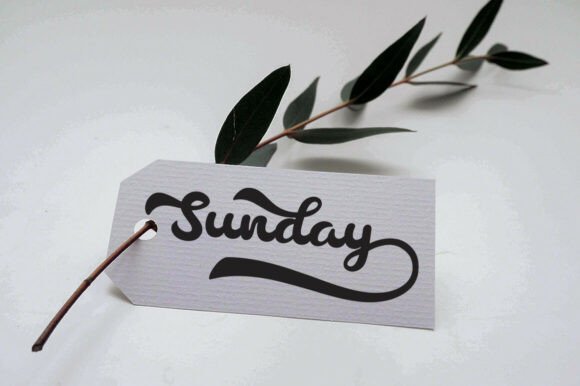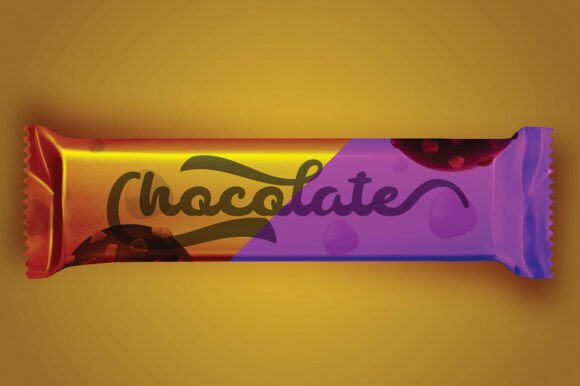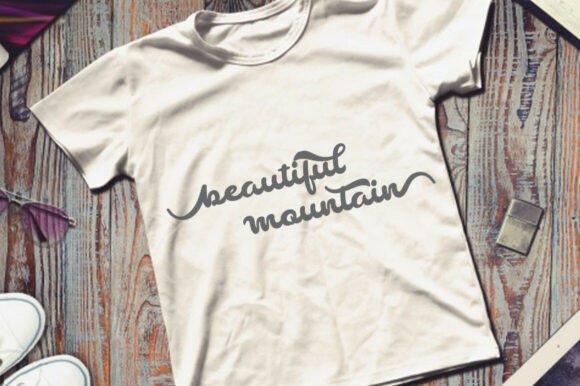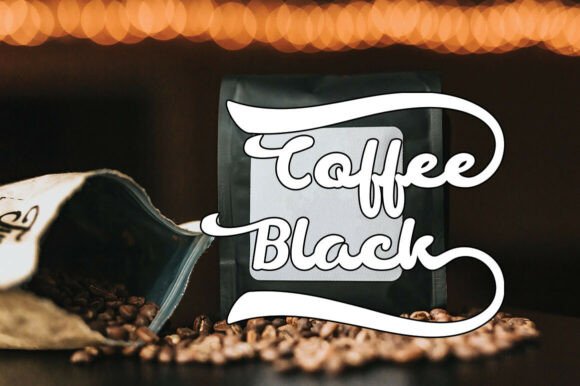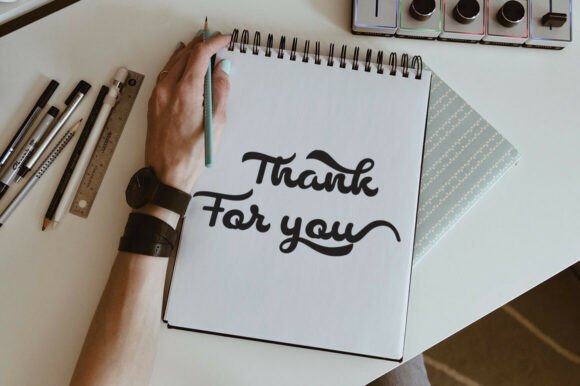
The Sweetest Font: A Deep Dive into Chocolate Script
I’ll never forget the design project that led me to discover Chocolate Script. I was working on a branding campaign for a trendy new cafe, and I needed a font that would capture the playful, yet sophisticated vibe of their brand. As I scrolled through font after font, nothing seemed quite right – until I stumbled upon Chocolate Script. Its fresh, modern style and handmade calligraphy immediately caught my eye, and I knew I had found the perfect fit.
- ✨ Fresh and modern style with a handmade touch
- ✅ 612 glyphs, including decorative characters and dancing lineage
- 🎉 OpenType features like Swash, Stylistic Sets, and Contextual Alternate
- 🔍 PUA unicode for easy access to alternative characters
While Chocolate Script is an amazing font, there are a few things to keep in mind. For example, ⚠️ some users may find the learning curve for OpenType features a bit steep. Additionally, 🤔 the font may not be suitable for very formal or traditional designs.
The Story Behind Chocolate Script
While the true story behind Chocolate Script is unknown, it’s easy to imagine a designer sitting at their desk, surrounded by coffee cups and sketchbooks, pouring their heart and soul into creating a font that’s both beautiful and functional. Perhaps they were inspired by the intricate details of hand-lettering, or the elegance of traditional calligraphy. Whatever the inspiration, the result is a font that’s truly special.
Q: Is Chocolate Script suitable for body text?
A: While Chocolate Script is a beautiful font, it’s best suited for display text or headings. For body text, you may want to choose a font with a bit more legibility.